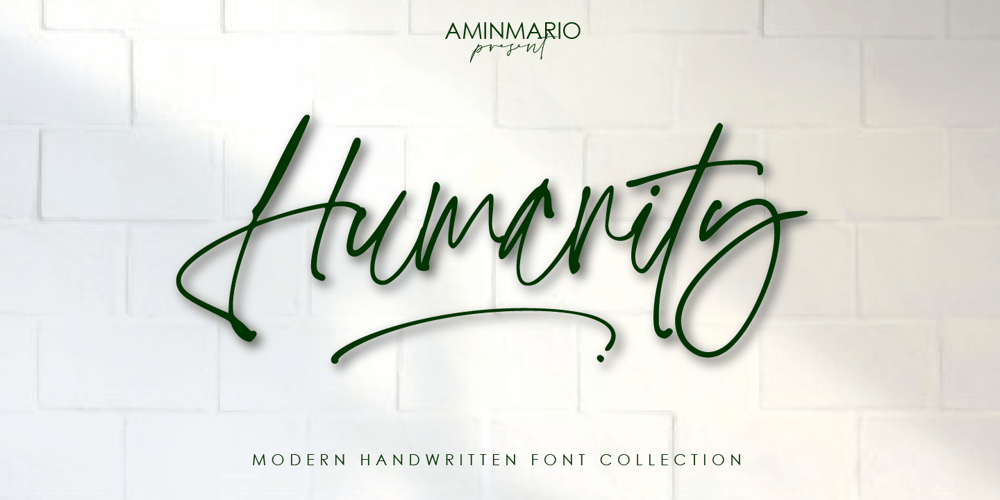
Humanity Font Family was designed by Amin Maryono and published by Aminmario Studio. Humanity contains 2 styles and family package options. IntroducingHumanity font is modern handwritten with a random thickness and charming gesture. This font was created to look as close to a natural handwritten script, as possible by including lowercase alternates, ligature and underlines. Perfect for any awesome projects that need hand writing taste.Comes with regular and italic. With built in Opentype features, this script comes to life as if you were writing it yourself.Don’t hesitate if you have any questions. Thanks for checking out this font. I hope you enjoy it!AminMario